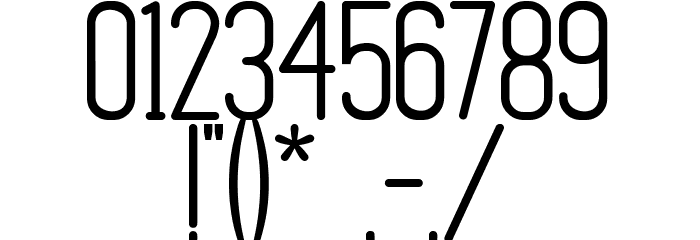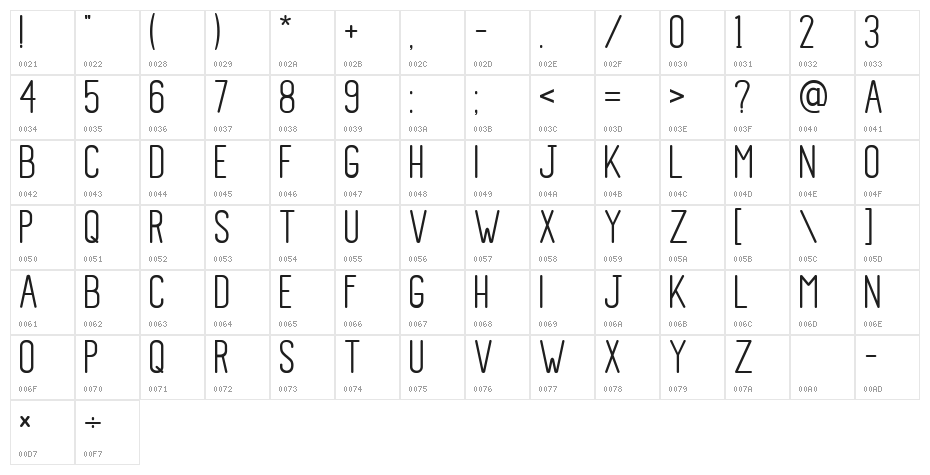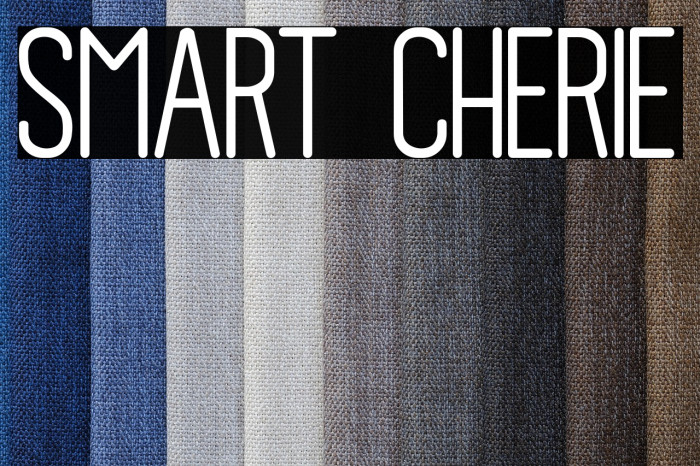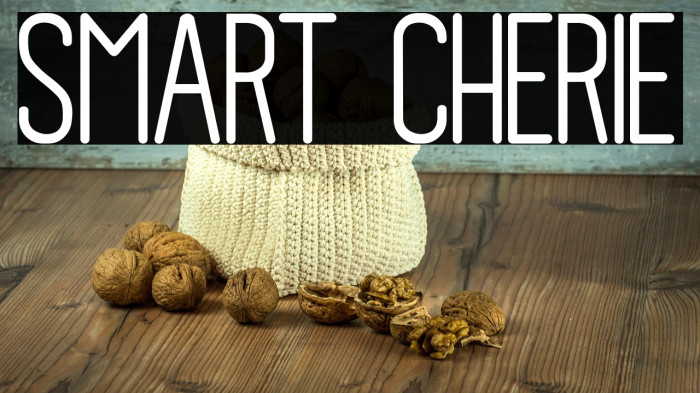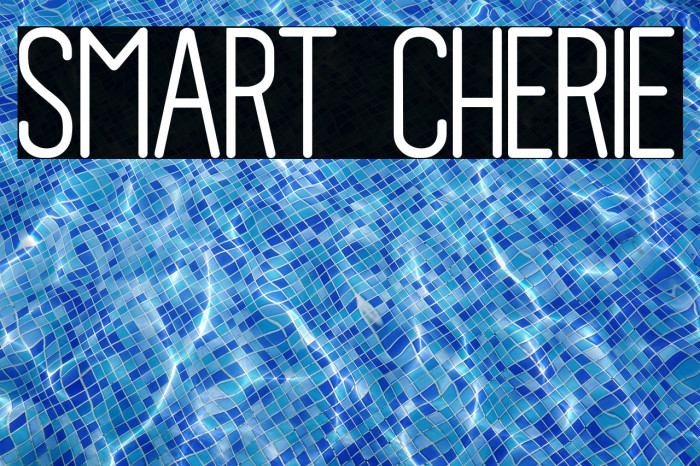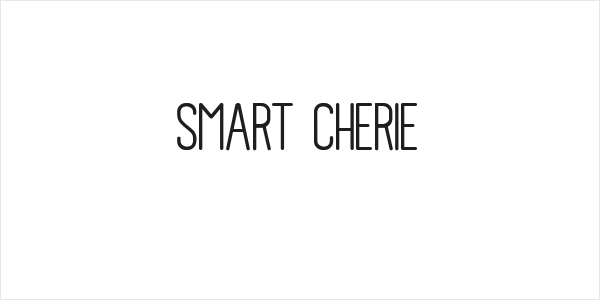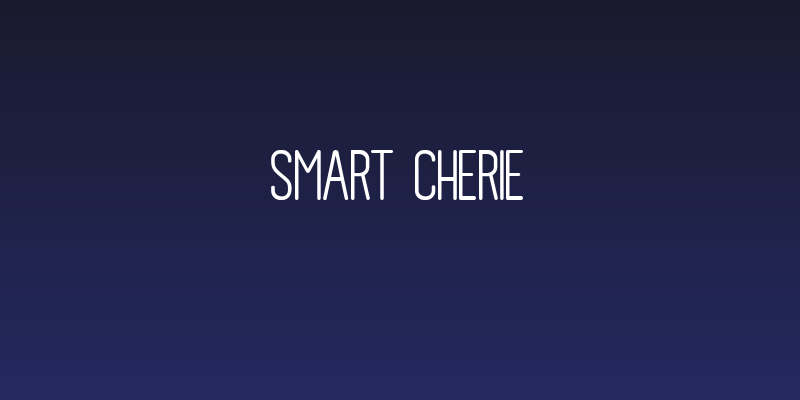
Smart Cherie Font
Smart Cherie Description
This font features a sleek, modern design with clean lines and a minimalist aesthetic. The characters are uniformly structured, offering a consistent and harmonious appearance. The uppercase and lowercase letters are well-balanced, with a geometric influence that gives the font a contemporary feel. The numerals are clear and easy to read, maintaining the same modern style. Special characters are included, enhancing the font's versatility. The overall design is both stylish and functional, making it suitable for a variety of applications.
| Use Case | Headlines, Logos, Digital Media |
| Proposed Projects | Ideal for branding, advertising, digital media, and modern web design projects. |